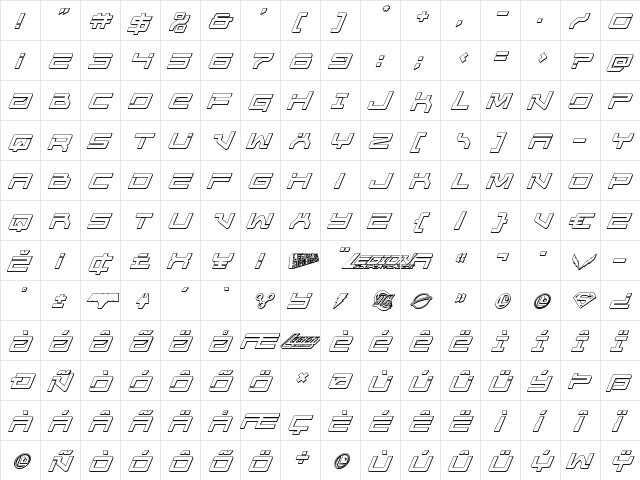
United Planets 3D Italic Italic
Design Context for United Planets 3D Italic Typeface
United Planets 3D Italic is a composed and adaptable typeface that performs quietly and consistently across a wide range of design contexts. Its italic angle brings a sense of urgency and motion to the letterforms.
Pro Tip: Try United Planets 3D Italic for annotation and caption copy alongside an upright companion — the contrast in angle creates a dynamic but ordered typographic system.